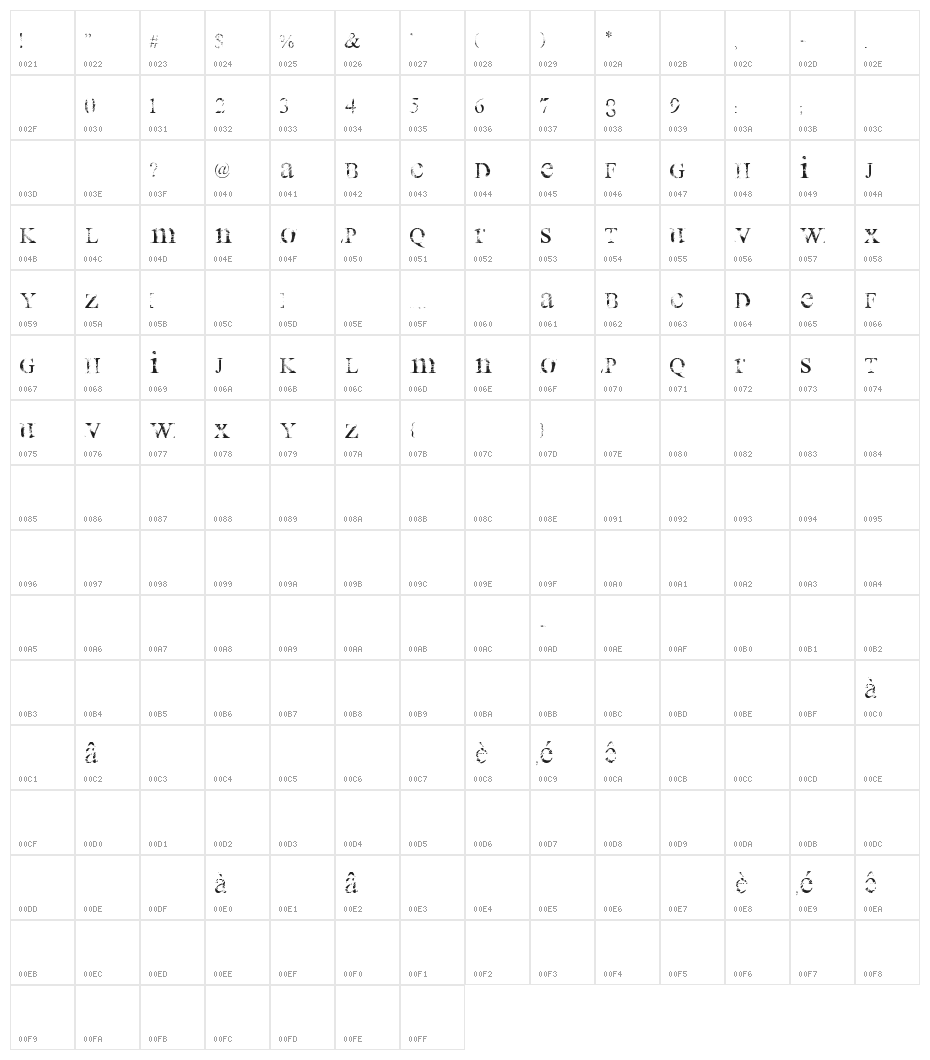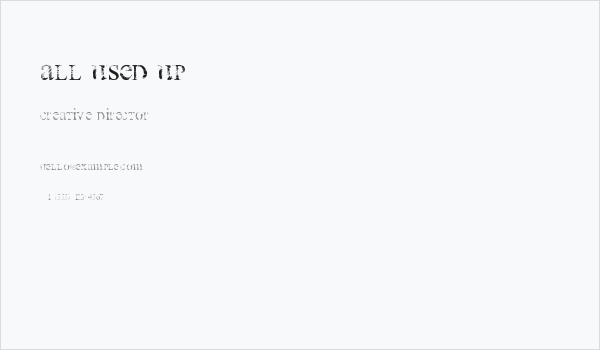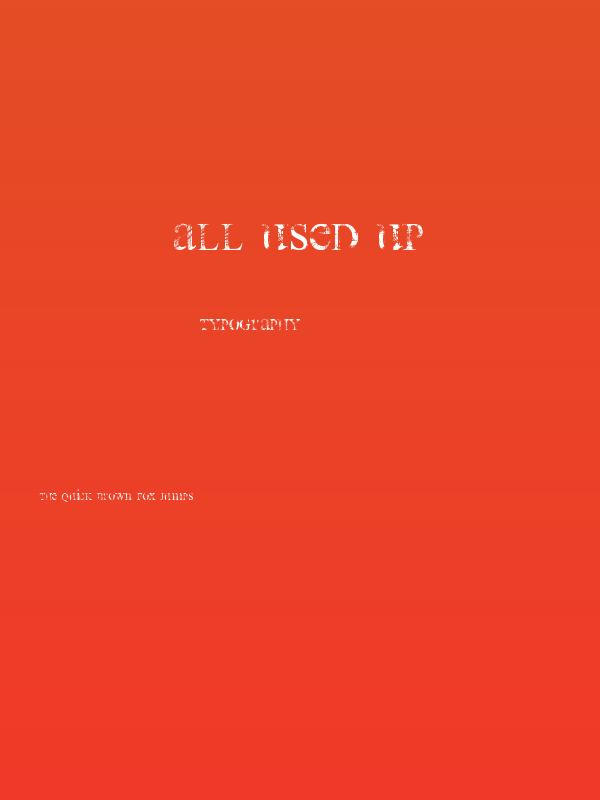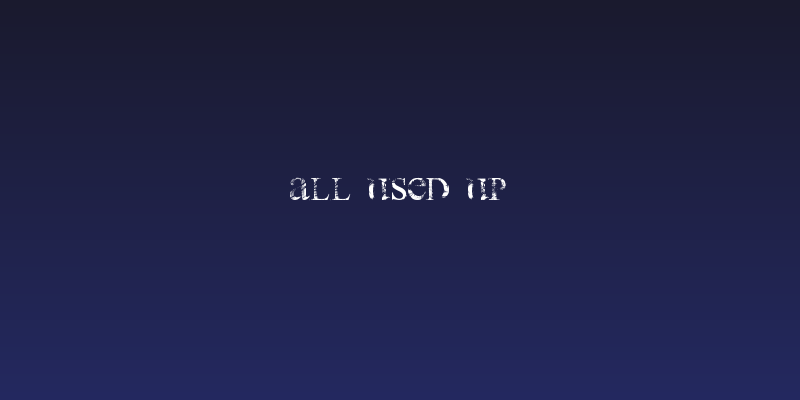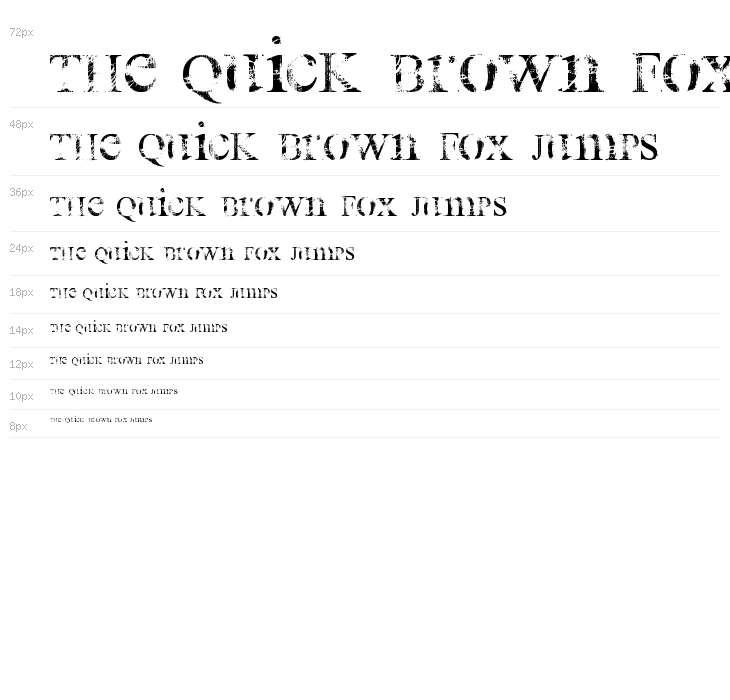
all used up Font
all used up Description
This font features a distressed and weathered appearance, giving it a unique, vintage look. The characters are bold with a rough texture, as if they have been eroded over time. This style adds a sense of history and character to the text, making it ideal for projects that require a rustic or aged aesthetic. The uppercase and lowercase letters maintain a consistent style, with numbers and special characters following the same distressed pattern. The font's design suggests a sense of ruggedness and authenticity, making it suitable for creative and artistic projects.
| Use Case | Logos, Posters, Branding |
| Proposed Projects | Ideal for vintage posters, album covers, branding for rustic-themed businesses, or any project needing a historical or aged look. |